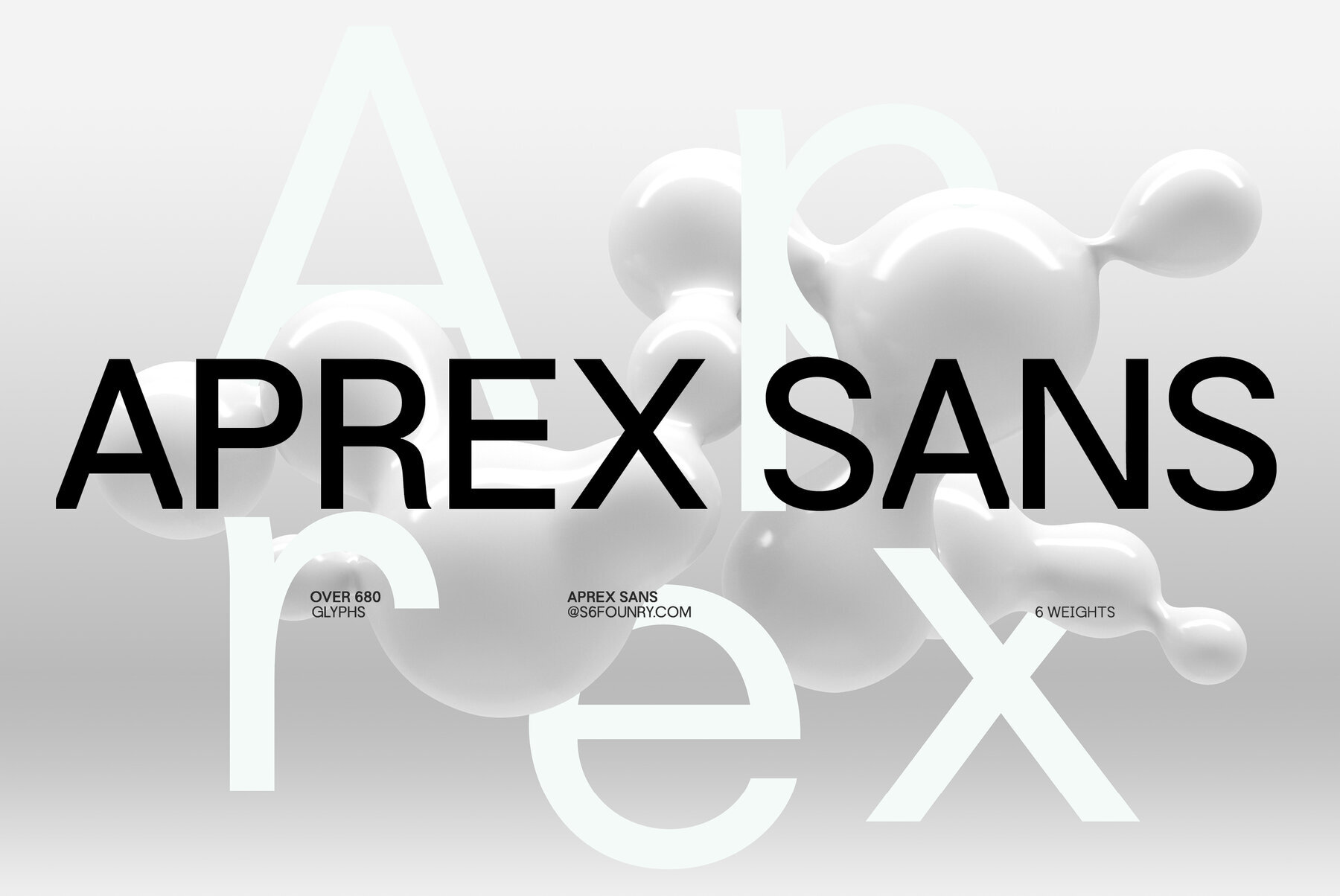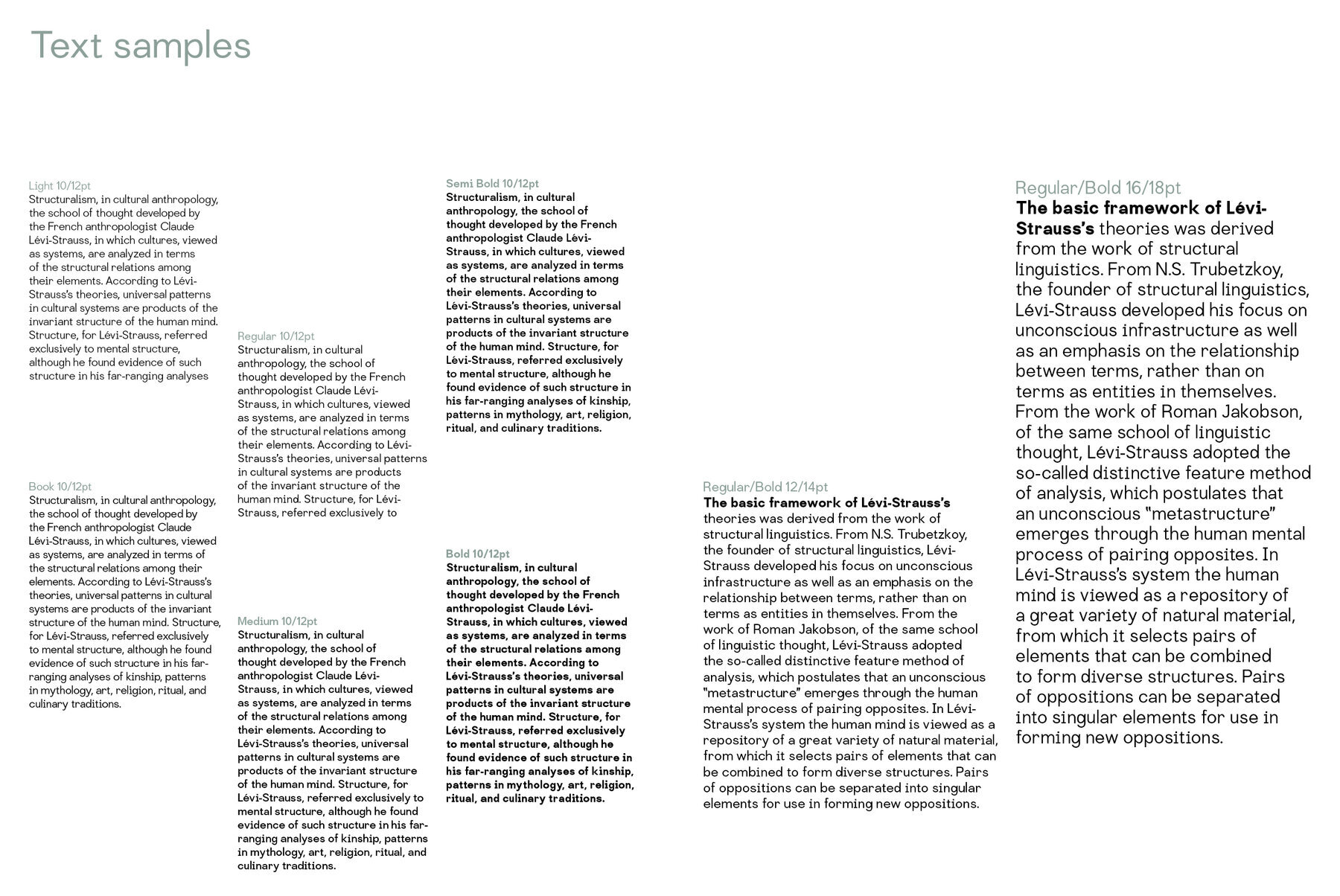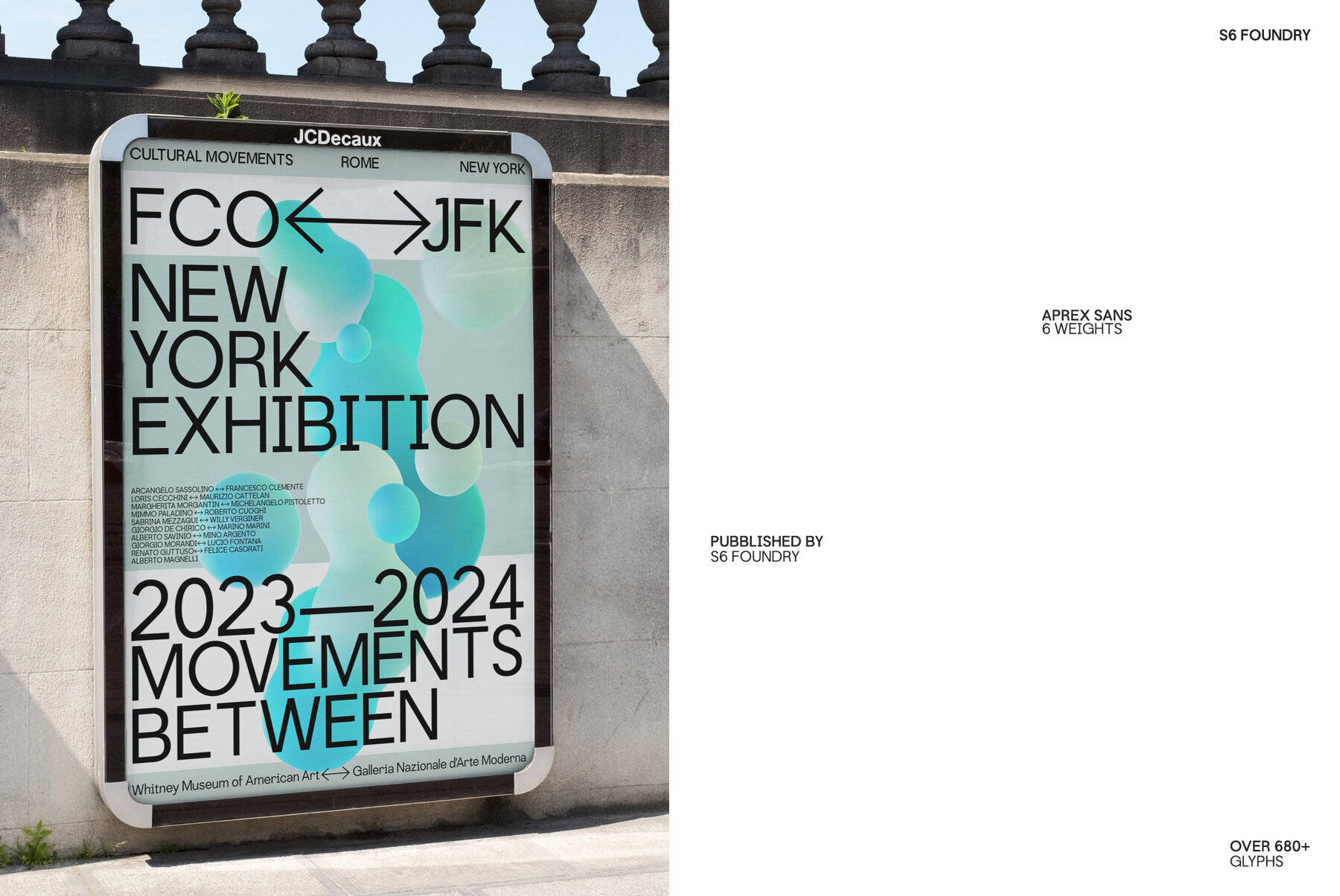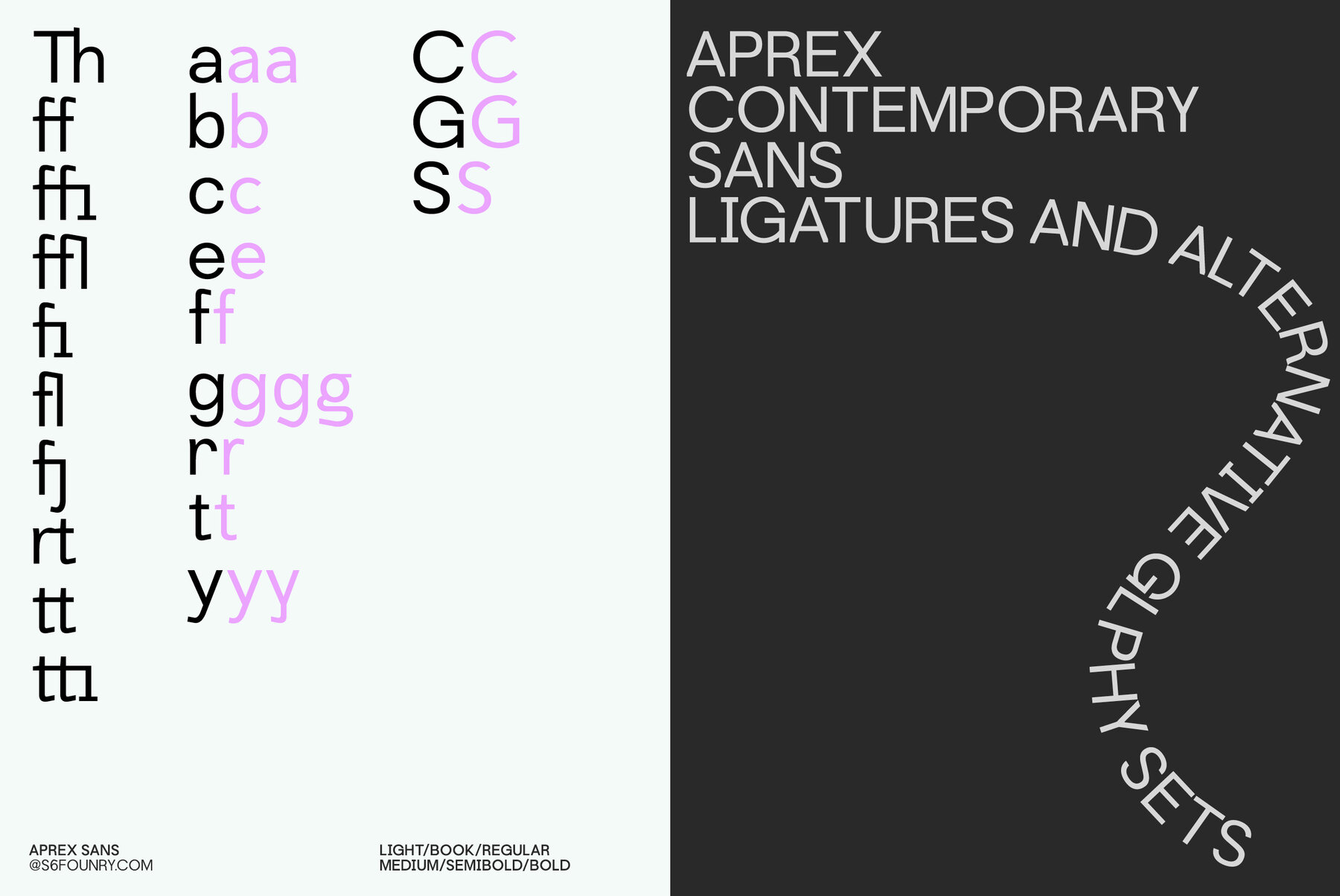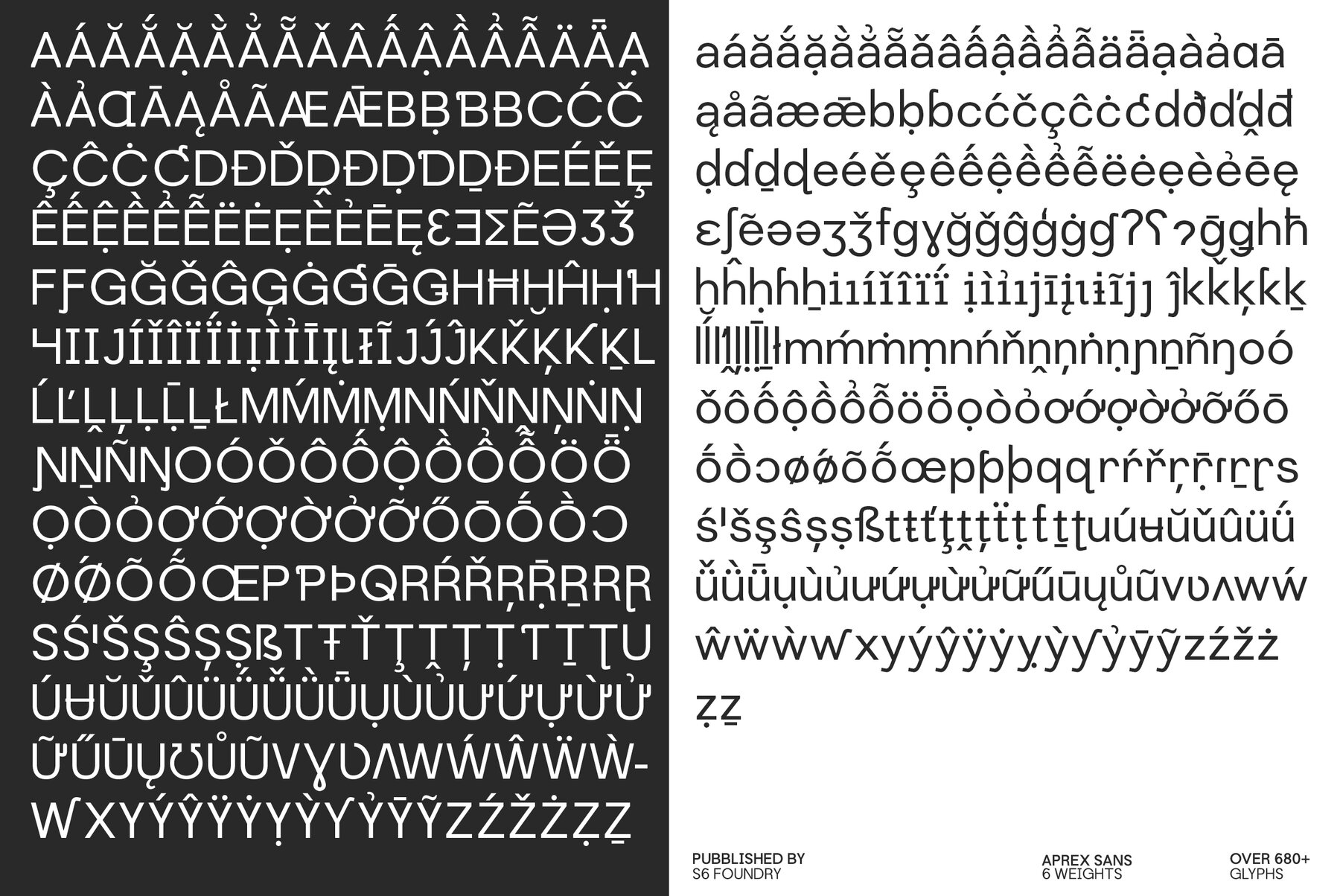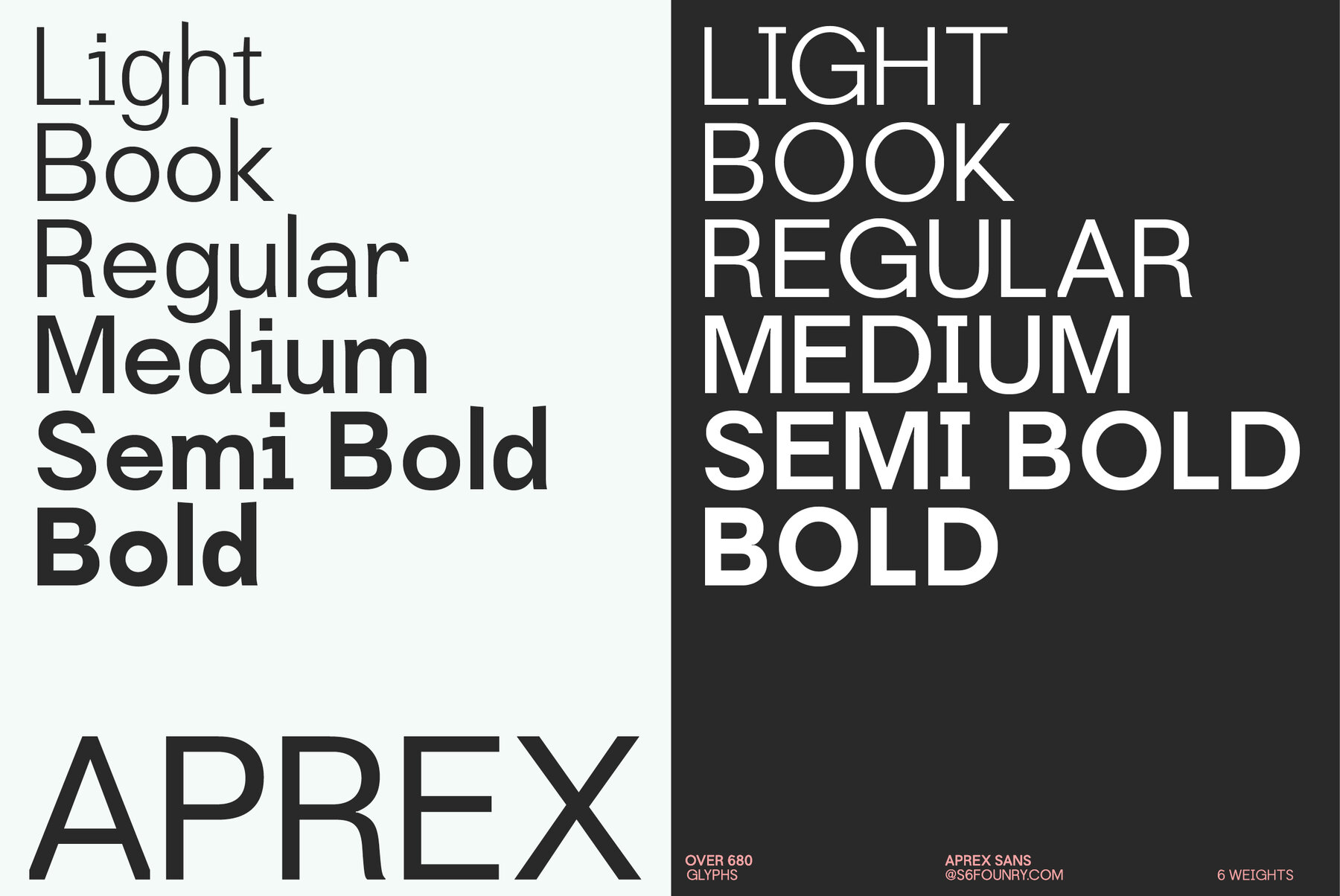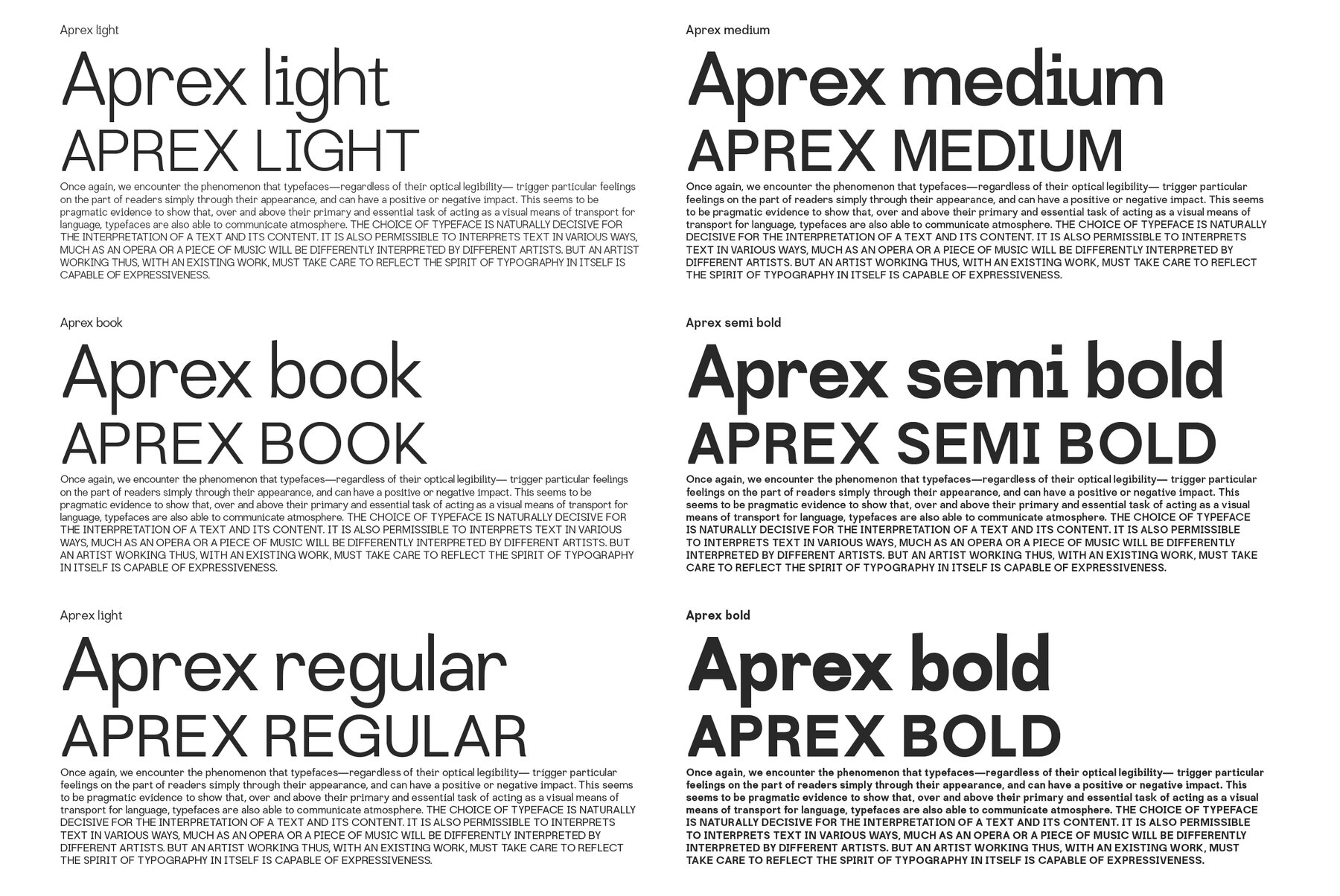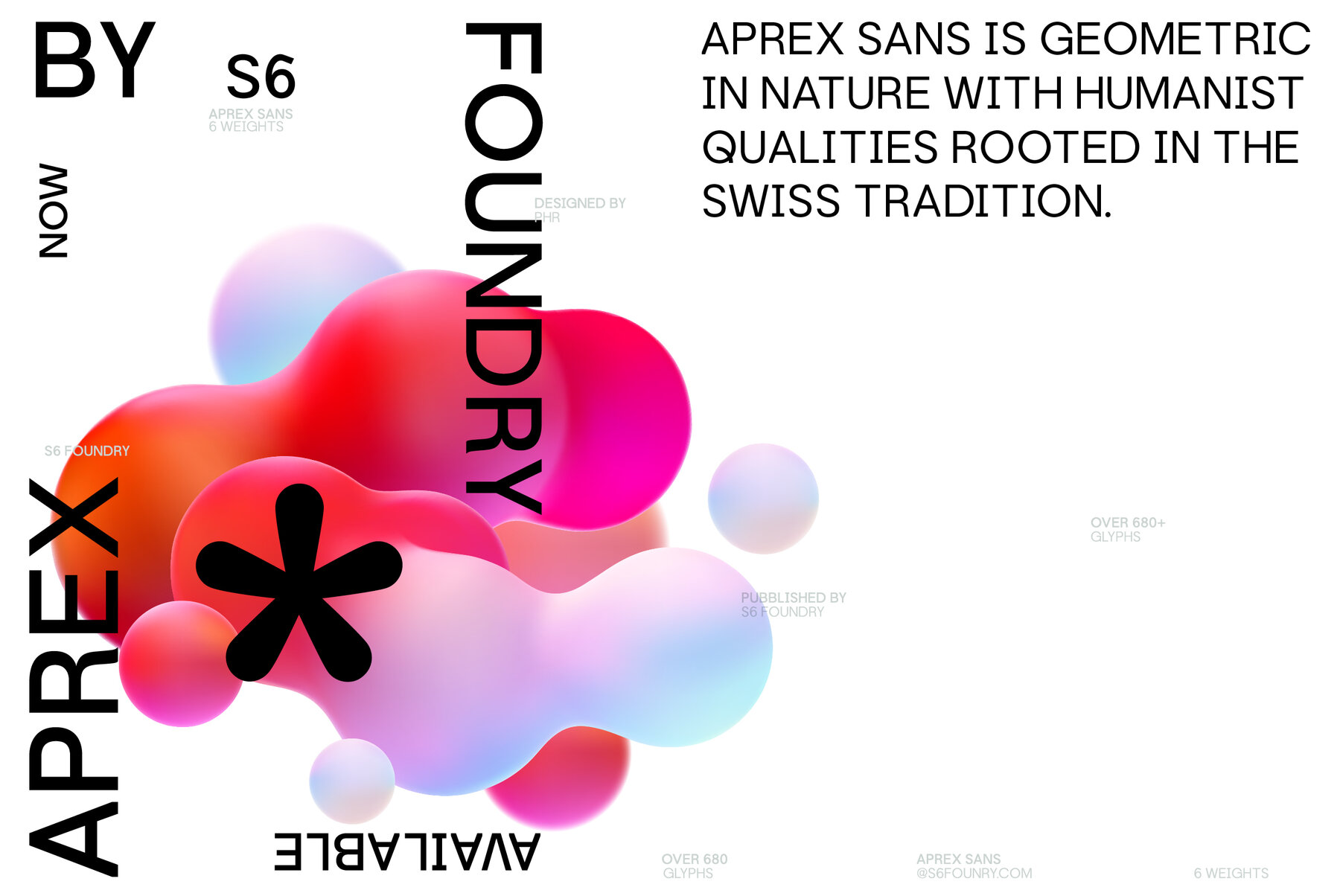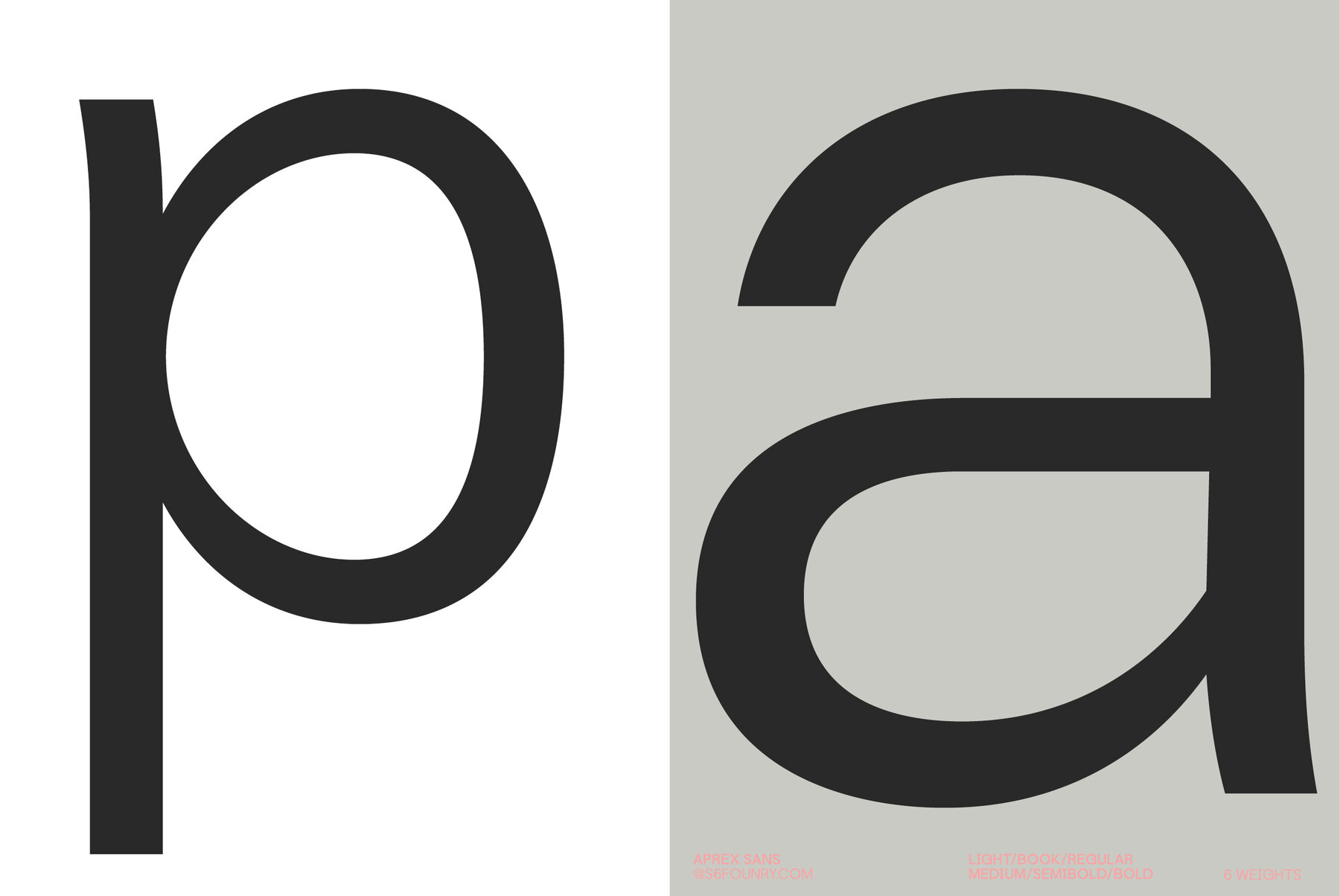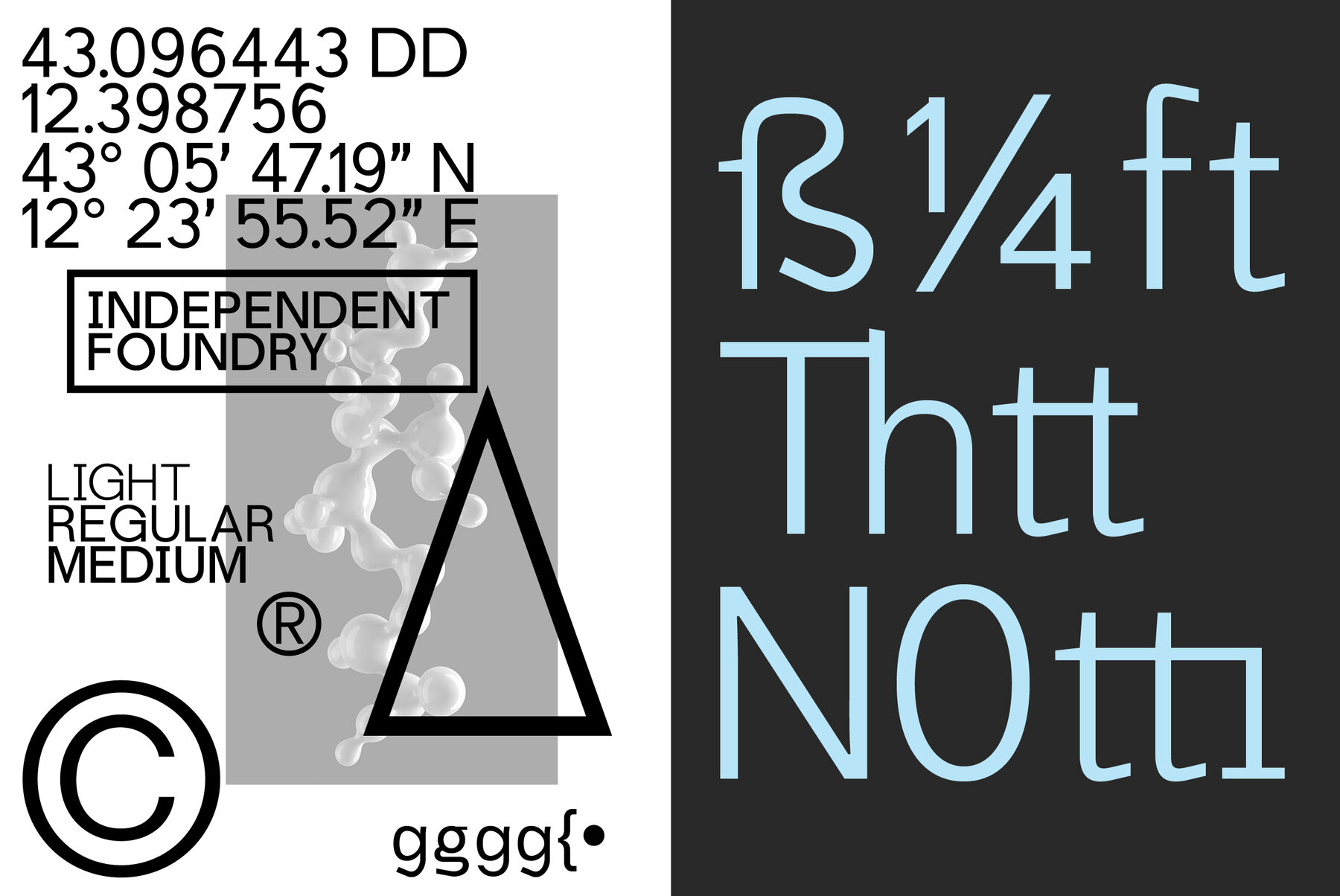
Aprex Sans Font
Aprex Sans perfectly balances the minimalist qualities associated with contemporary sans with flair within the width of the counters and comfortable, breathable apertures.
Throughout weights and sizes, the typeface has great legibility and good contrast between positive and negative space, making it stunningly versatile.
With a seamless combination of contemporary details and classic styles, Aprex Sans draws inspiration from the mid-century humanist and grotesque typefaces, and its solid and straightforward structure is characterized by angular connections between curves and stems.
Aprex Sans is geometric in nature with humanist qualities rooted in the Swiss tradition.